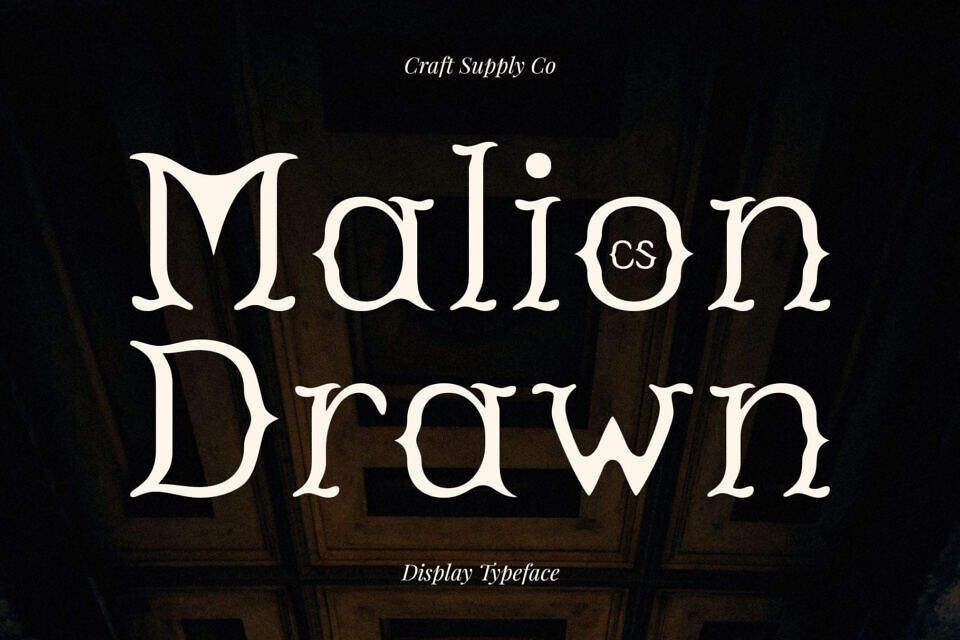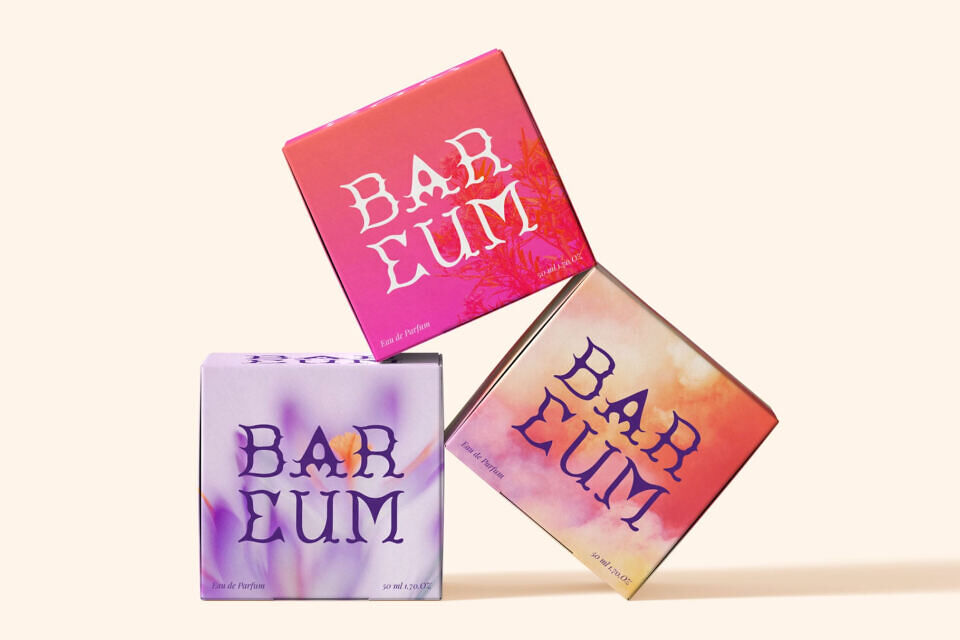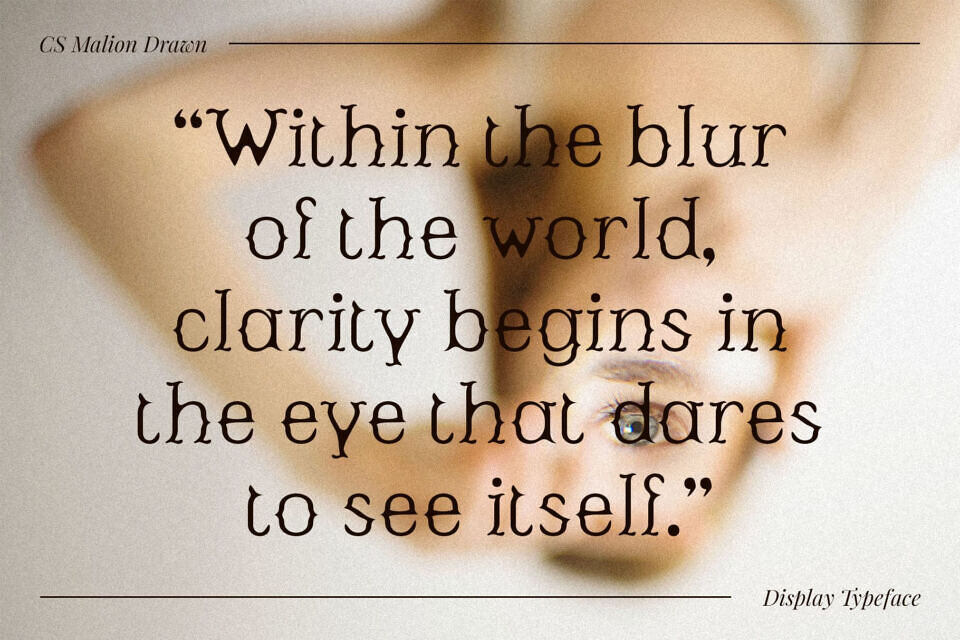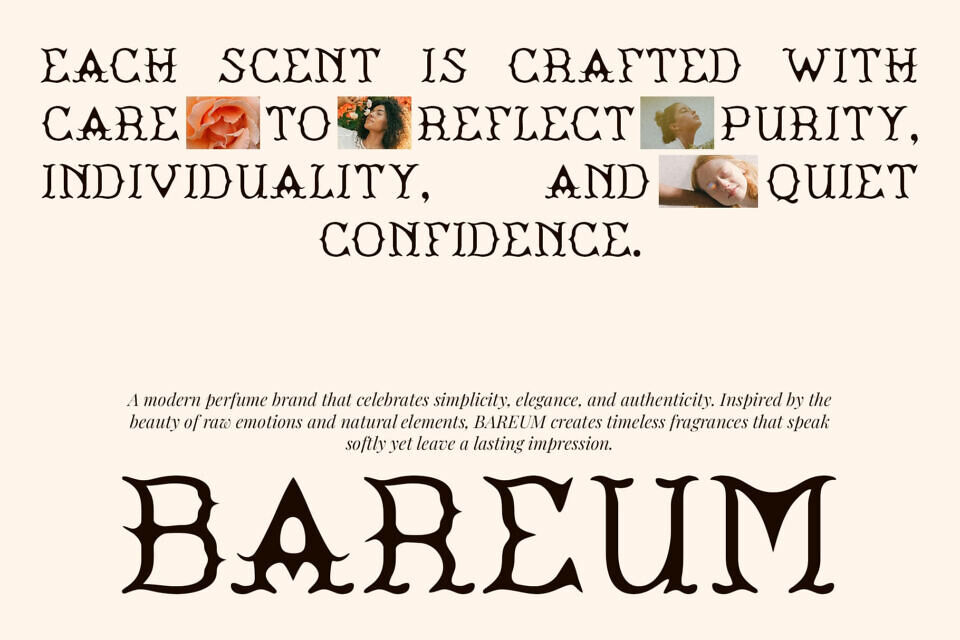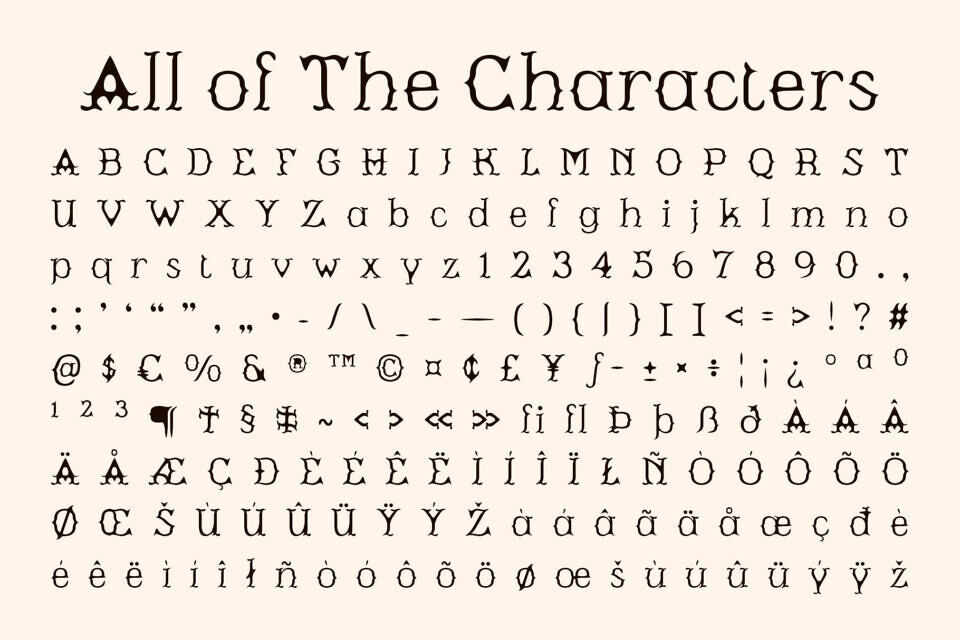
CS Malion Drawn is an elegant, modern-classic display serif font. Its clean, decorative letterforms feature a subtle drawn effect, blending classic style with contemporary design.
Perfect for luxury projects, logos, and branding, this versatile font offers a sophisticated yet expressive look, ensuring your designs stand out.